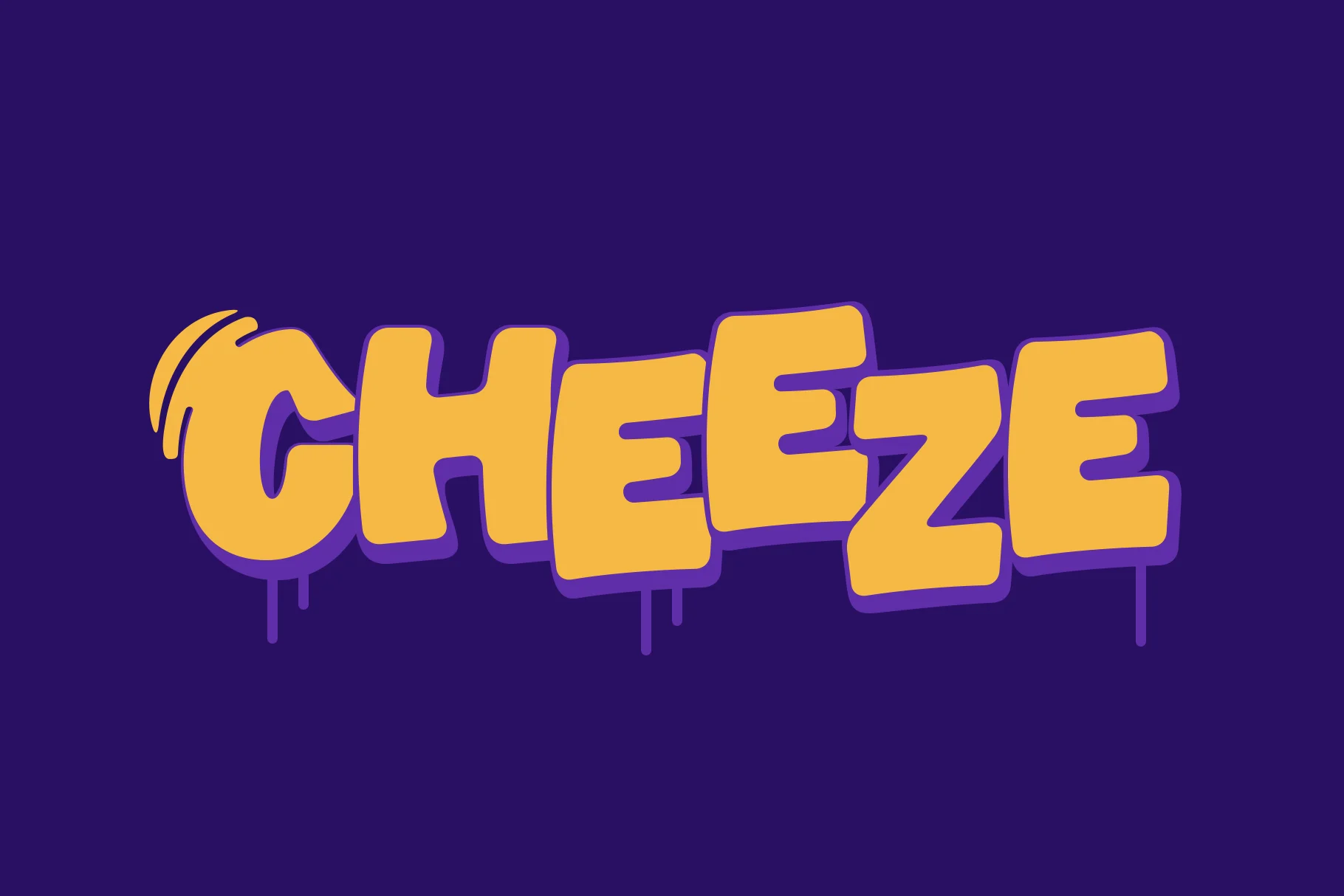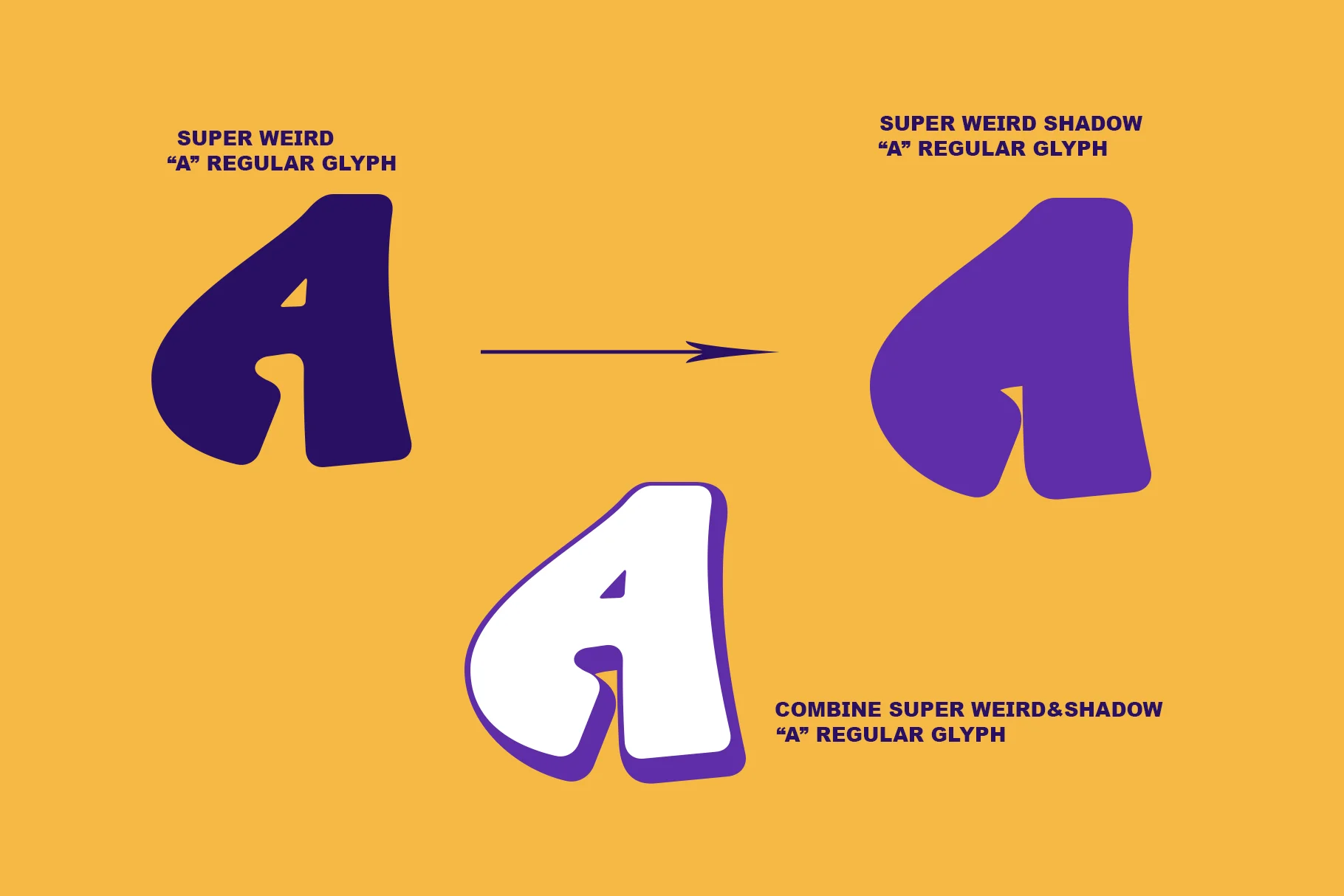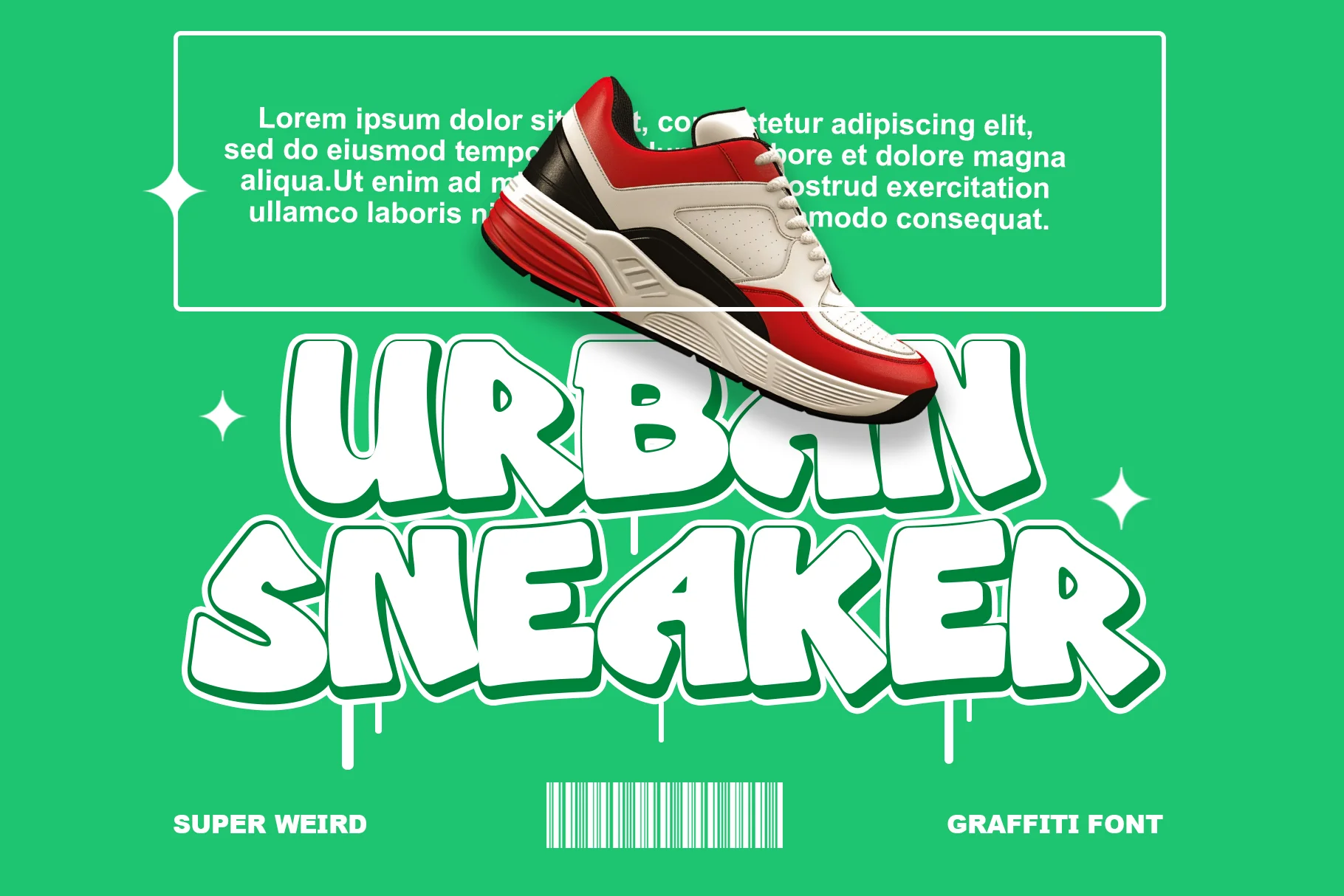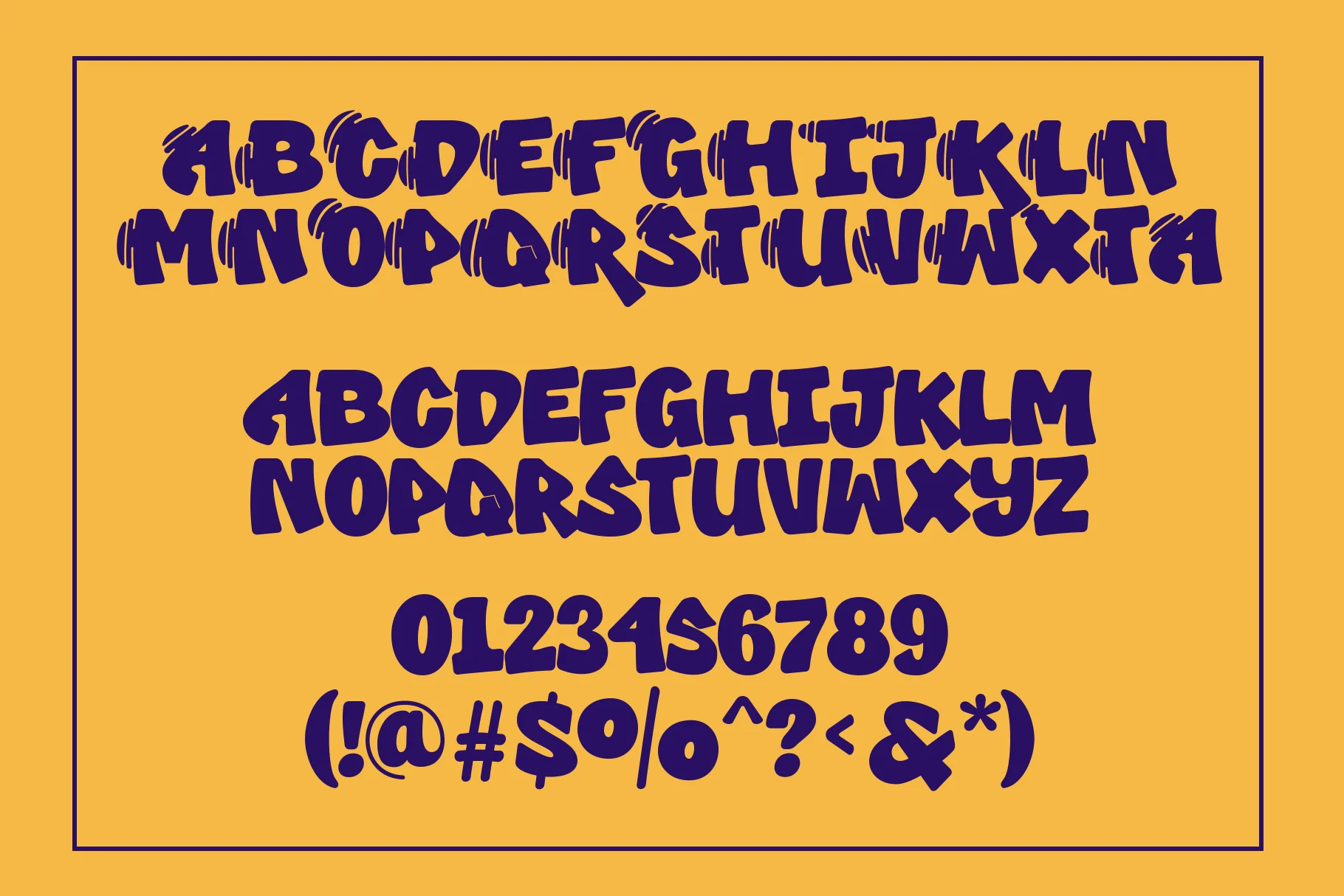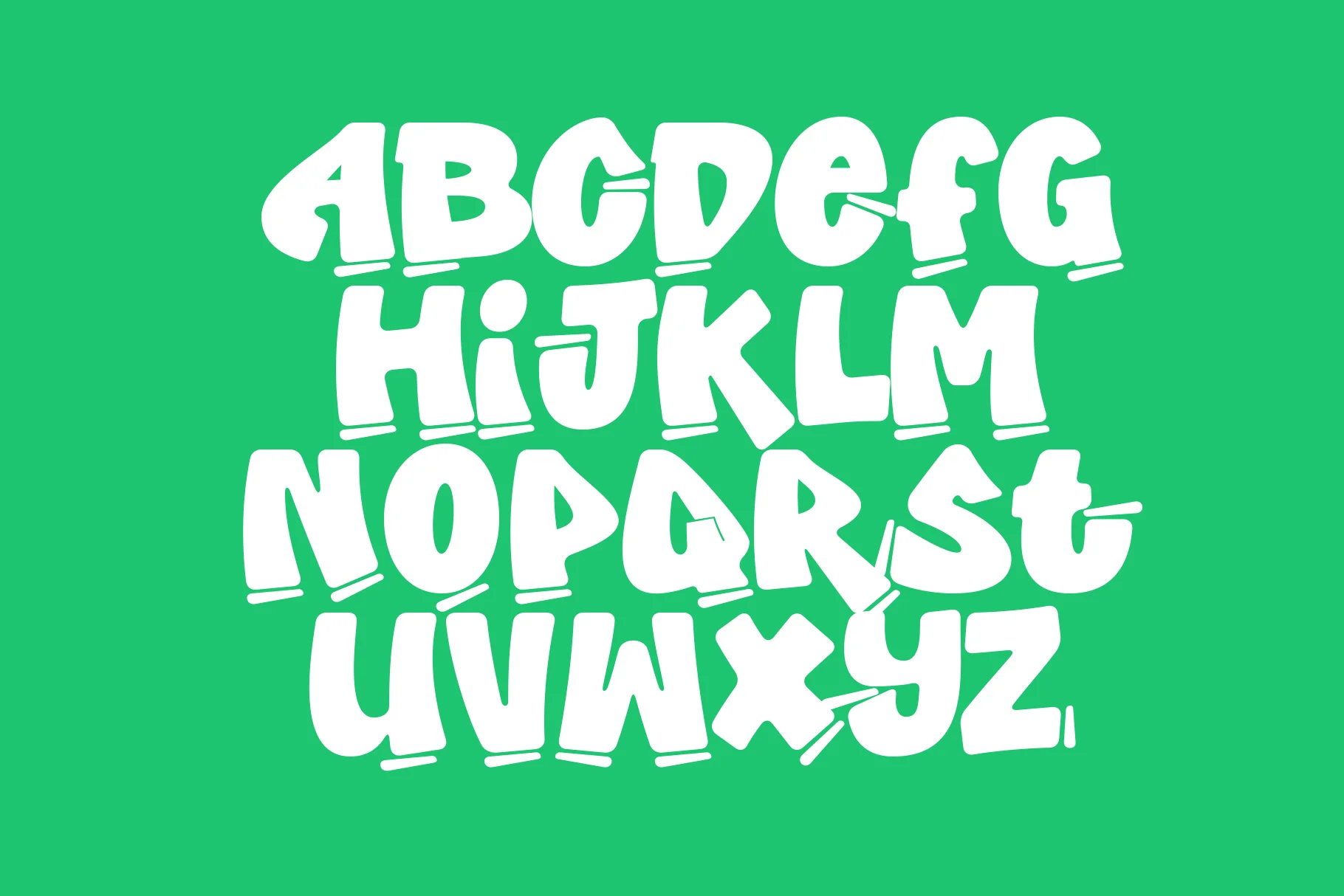
Super Weird
Super Weird is a graffiti display font with bold, playful, and expressive characters. The letterforms are thick, rounded, and relaxed, conveying a strong sense of fun, street style, and youthfulness. Each character feels free and organic, as if drawn directly in a relaxed yet energetic urban style.
Super Weird's distinctive features lie in its asymmetrical letter curves, drip details, and bold outlines that create a raised effect and enhance the text's prominence. This style creates a wild, unique, and anti-formal feel, perfect for designs that seek to stand out and be bold.
Despite its decorative appearance, Super Weird maintains excellent readability at large sizes, making it ideal for headlines or key visual elements.